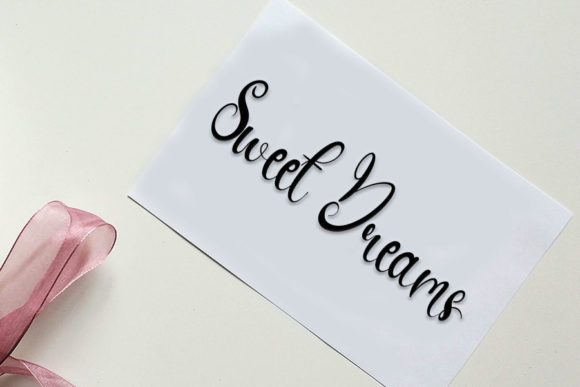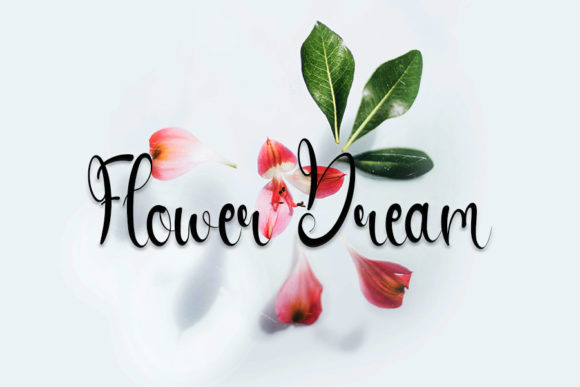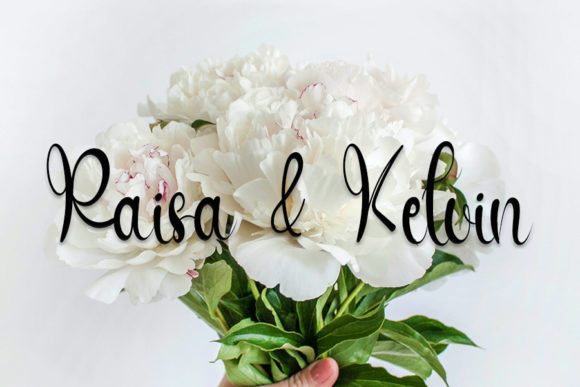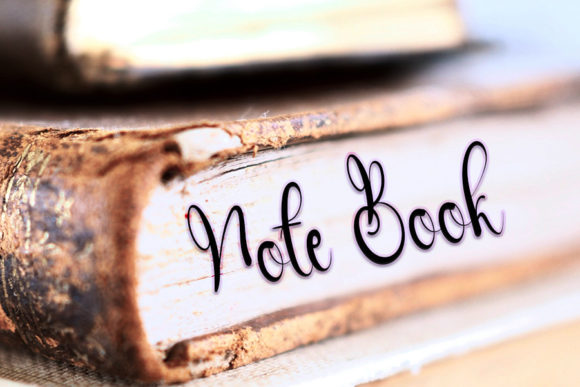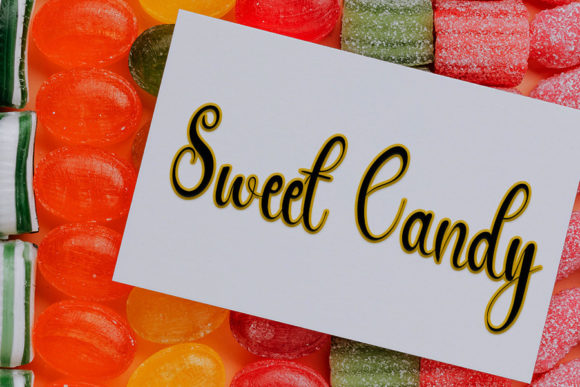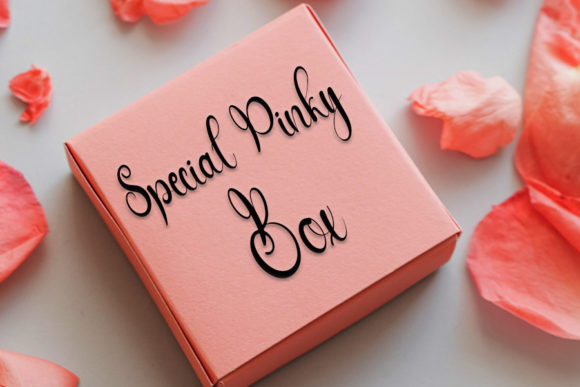
Unlock the Secret to Stunning Designs with Beauty Sleep Font
Are you tired of using the same old fonts for your designs? Do you want to add a touch of elegance and playfulness to your creations? Look no further than the Beauty Sleep Font! This beautiful handwritten font is the perfect choice for designers and crafters who want to take their work to the next level.
The Perfect Blend of Playfulness and Sophistication
Beauty Sleep Font is a unique and stylish handwritten font that is sure to make your designs stand out. Its playful and smart-looking aesthetic makes it ideal for creating eye-catching logos, branding, and quotes. The font’s elegant and refined feel will add a touch of sophistication to any design, making it perfect for a wide range of projects.
What Sets Beauty Sleep Font Apart
So, what makes Beauty Sleep Font so special? For starters, every letter has a unique and beautiful touch that will make your design come alive! The font’s handwritten aesthetic gives it a personal and organic feel that is hard to replicate with traditional fonts. Plus, the font’s versatility makes it suitable for a wide range of projects, from logos and branding to quotes and social media graphics.
With Beauty Sleep Font, the design possibilities are endless! Here are just a few ideas to get you started:
- Create stunning logos and branding materials that will help your business stand out
- Design eye-catching quotes and social media graphics that will grab attention
- Add a touch of elegance to your website or blog with custom typography
- Use the font to create beautiful and unique stationery and invitations
Why Designers and Crafters Love Beauty Sleep Font
Beauty Sleep Font has quickly become a favorite among designers and crafters, and for good reason! Here are just a few reasons why:
- The font’s unique and playful aesthetic adds a touch of personality to any design
- The font is incredibly versatile and can be used for a wide range of projects
- The font is easy to read and understand, making it perfect for body text and headlines
- The font is highly customizable, allowing you to adjust the size, color, and style to fit your needs
Tips for Getting the Most Out of Beauty Sleep Font
Here are a few tips for getting the most out of Beauty Sleep Font:
- Experiment with different font sizes and colors to find the perfect combination for your design
- Use the font to create a cohesive brand identity across multiple platforms
- Don’t be afraid to get creative and try out new and unique design ideas
- Use the font to add a touch of elegance and sophistication to your designs
In conclusion, Beauty Sleep Font is a beautiful and versatile handwritten font that is perfect for designers and crafters who want to take their work to the next level. Its unique and playful aesthetic makes it ideal for creating eye-catching logos, branding, and quotes, while its elegance and sophistication make it suitable for a wide range of projects. So why wait? Unlock the secret to stunning designs with Beauty Sleep Font today!